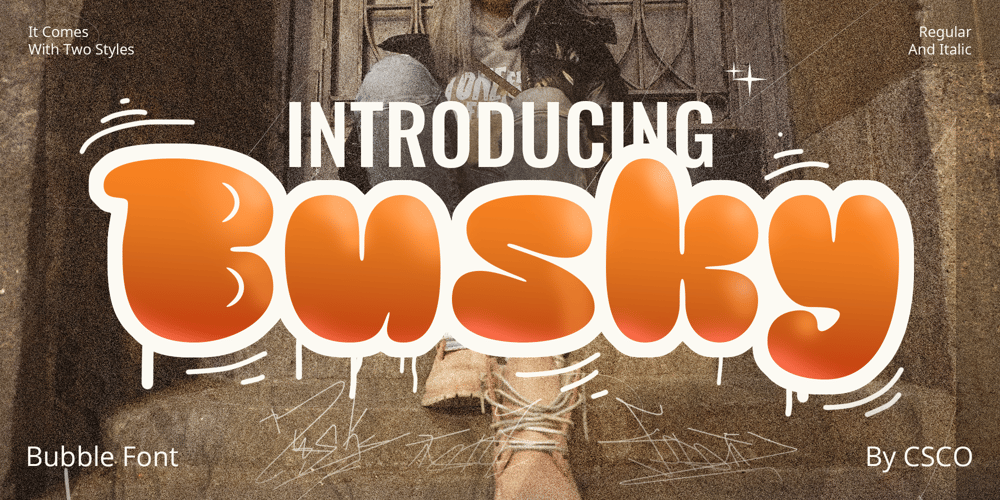
Busky
Busky font
Busky Font Family was designed by Trio Nazzar Saputra, Wahyu Hadi Yuana and published by Craft Supply Co. Busky contains 8 styles and family package options. Urban Graffiti Font BuskyIntroductionMeet Urban Graffiti Font Busky, a vibrant display font inspired by street art. This font captures the essence of graffiti culture. It’s perfect for adding a playful touch to your designs. Busky’s bold and lively appearance is sure to grab attention.Design and StyleBusky features bubble letter forms, giving it a fun and bouncy feel. Each character is crafted to resemble graffiti bubbles. The font’s rounded edges convey a sense of movement and fluidity. This style is ideal for projects needing a touch of urban flair.